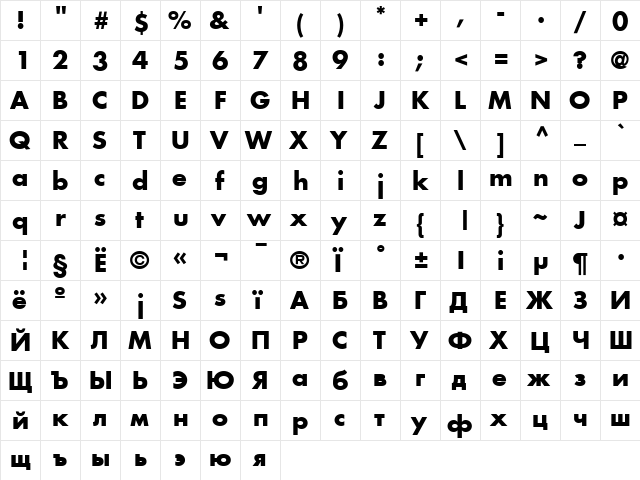
AG_Futura Bold
Design Context for AG_Futura Typeface
AG_Futura channels digital-age aesthetics through its sharp, structured letterforms — ideal for brands that want to signal innovation. Its bold stroke weight gives it real presence on the page.
Pro Tip: Use AG_Futura in combination with a neutral sans for body text. Let it define the brand voice in headlines while keeping reading comfortable elsewhere.